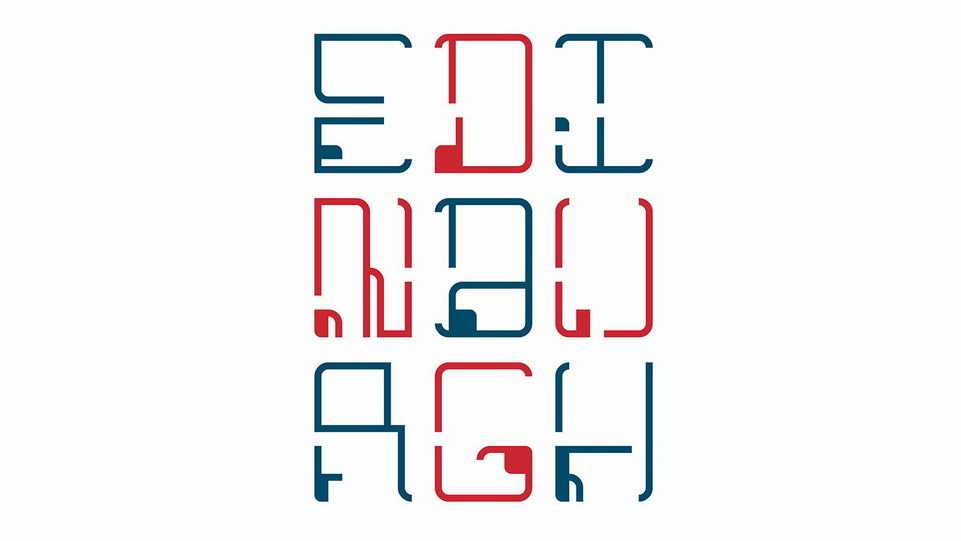
Download Eidyn font, a unique display typeface. It reflects the perfect planimetric geometry of Edinburgh city centre built in the same territory of the historic architectures of the old town
Designer: Stefania Quattropani